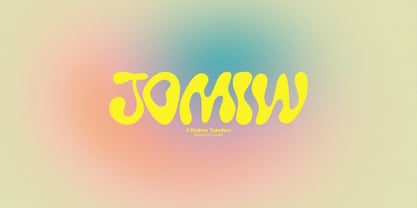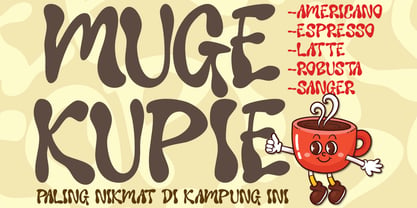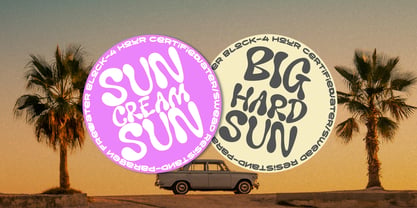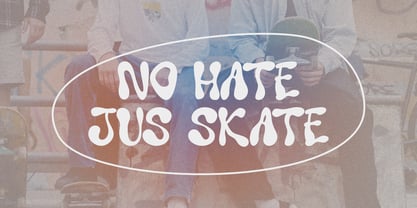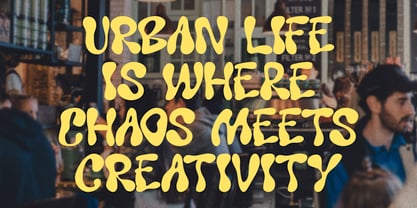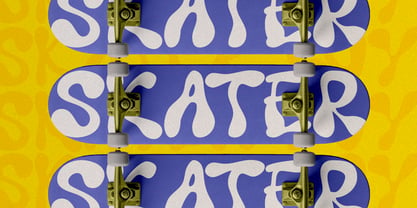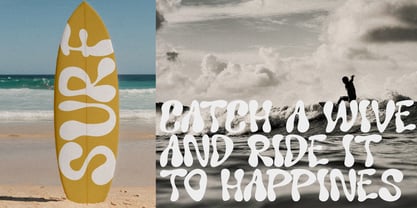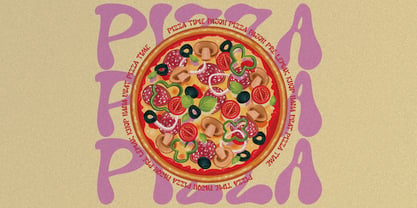
Jomiw
The Jomiw Font Family was designed by Ari Juanda and published by Linecreative. Jomiw contains 1 styles. More about this family
JOMIW is a playful display typeface filled with organic shapes and expressive energy. Its fluid and flexible letterforms create a strong retro psychedelic vibe blended with a modern urban touch. Every character is designed with soft curves and imperfect shapes, giving the font a unique, artistic, and eye-catching personality.
The typeface features bold rounded forms that feel friendly yet visually strong. Its flowing structure almost looks melted or freely moving, creating a lively and dynamic rhythm across every word. This distinctive style makes JOMIW highly expressive and instantly recognizable.